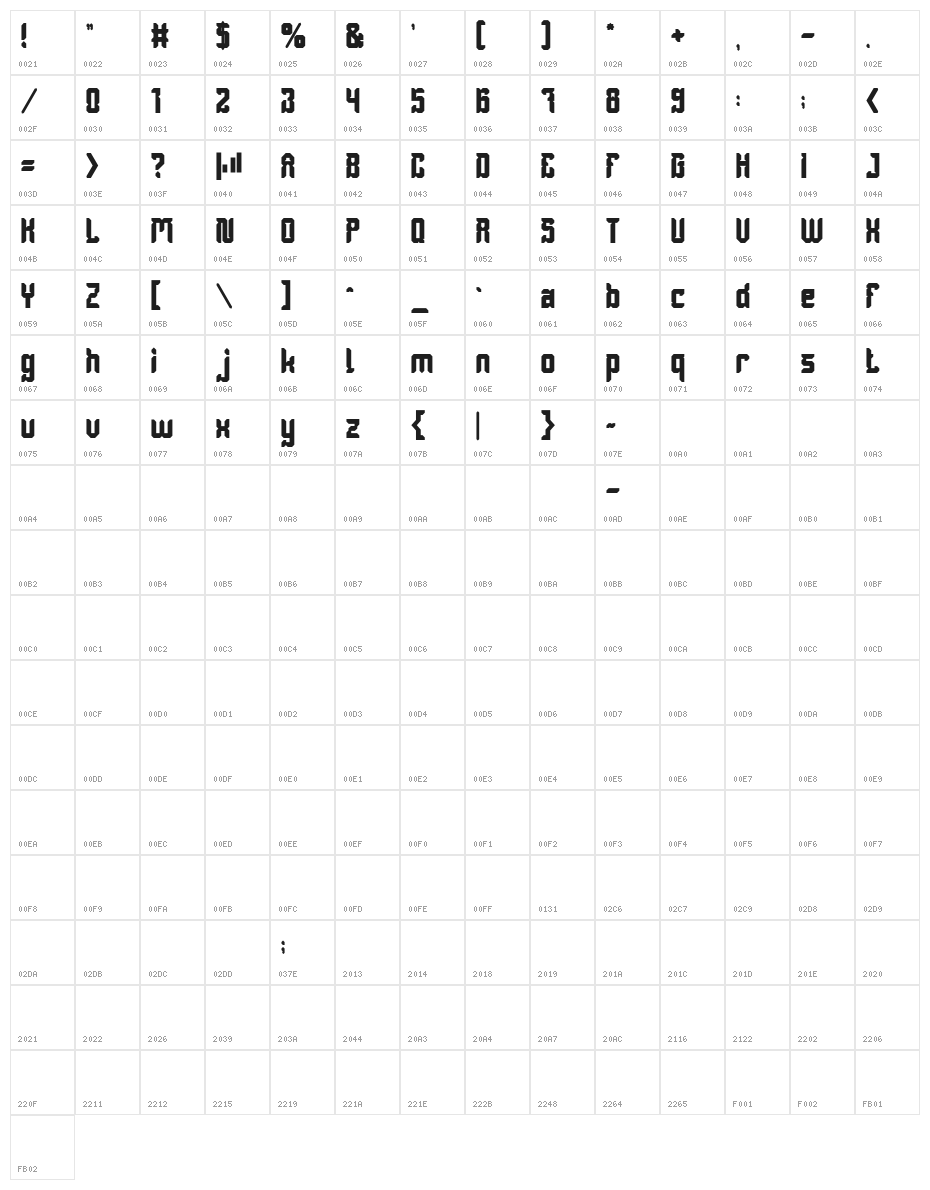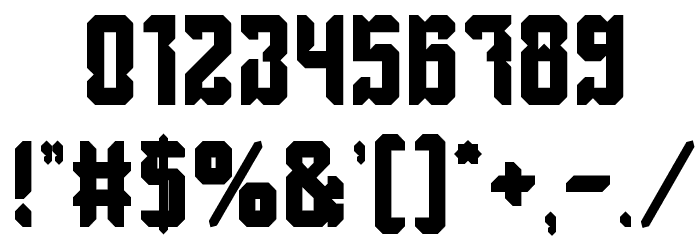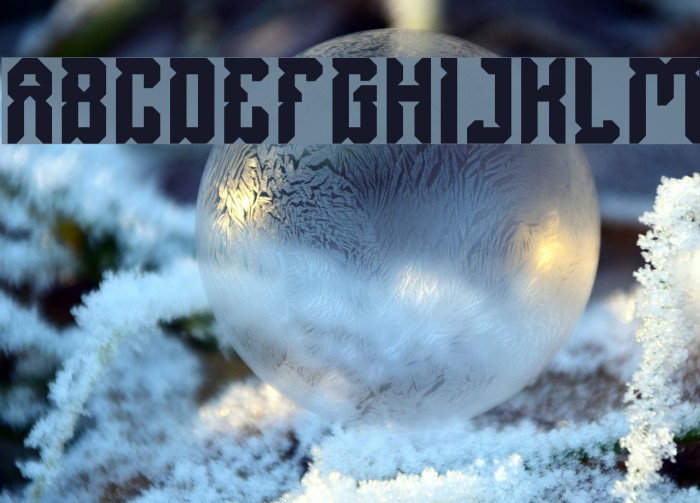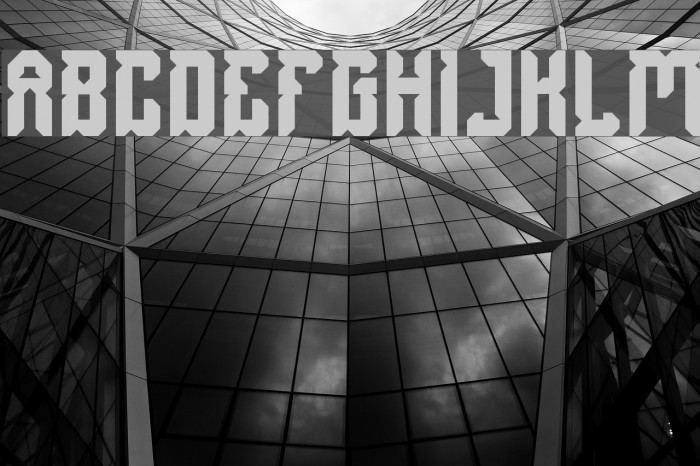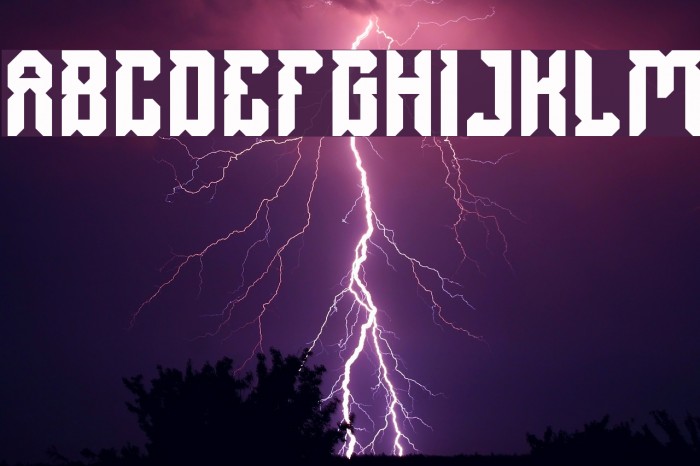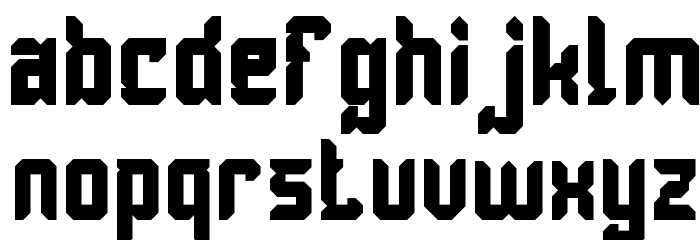
Dayak Shield Bold Font
Dayak Shield Bold Description
This font features a bold and geometric design, characterized by its angular and blocky letterforms. The uppercase and lowercase letters maintain a consistent structure, with sharp edges and a strong presence. The numerals and special characters follow the same stylistic approach, ensuring uniformity across all glyphs. The font's distinct style is reminiscent of tribal or cultural motifs, making it stand out with its unique aesthetic. Its bold weight and high contrast between strokes give it a commanding appearance, suitable for impactful visual statements.
| Proposed Projects | Ideal for projects requiring a strong visual impact, such as posters, logos, branding, and cultural or tribal-themed designs. |